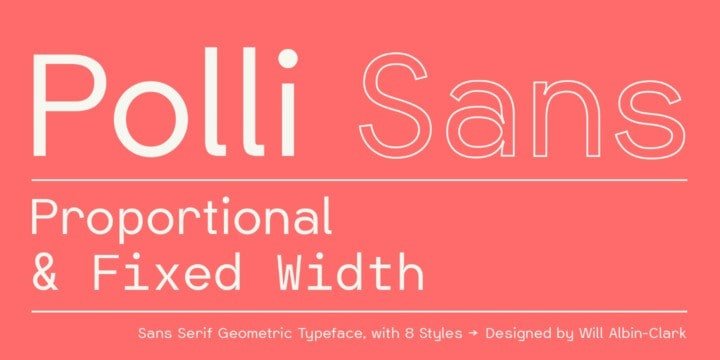
Polli Sans Serif Font Family
Polli Sans Serif Font Family is a rounded geometric sans serif font family that includes all uppercase and lowercase letters with punctuation and a total of 239 glyph. Polli is great for large scale display purposes and small scale copy.
The proportional’s curvy form makes it super useful for title type, and the detailed technical fixed-width sub-family is perfect for any informative body of text. This font is free for personal and commercial use.